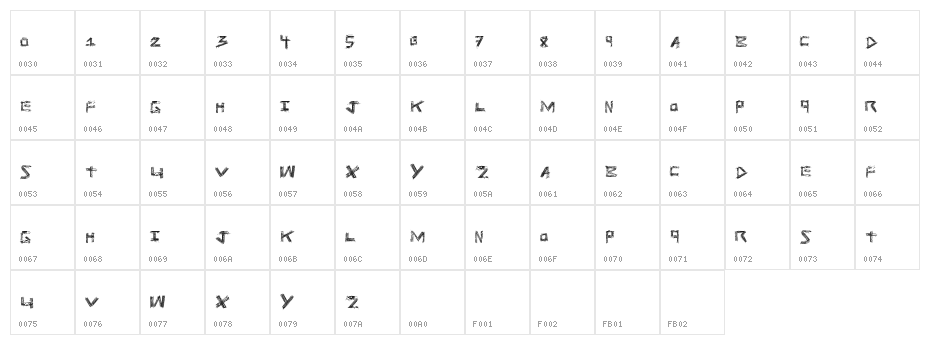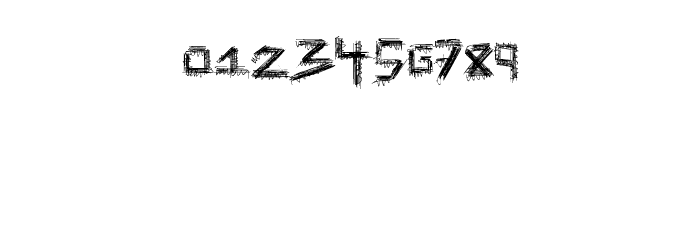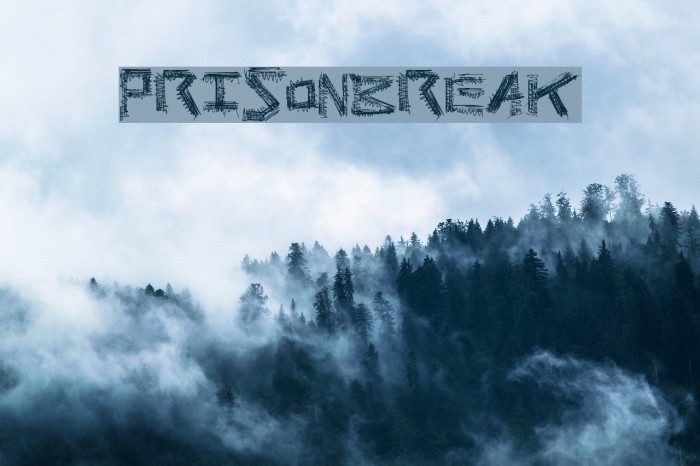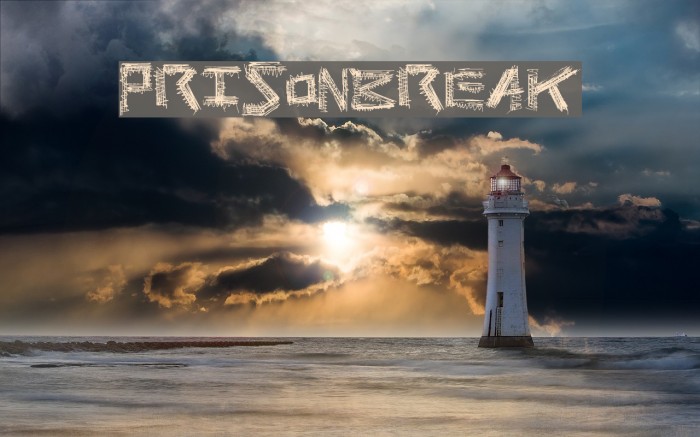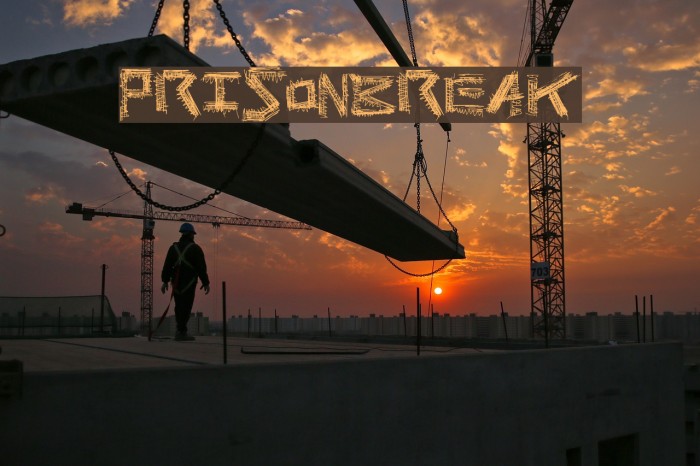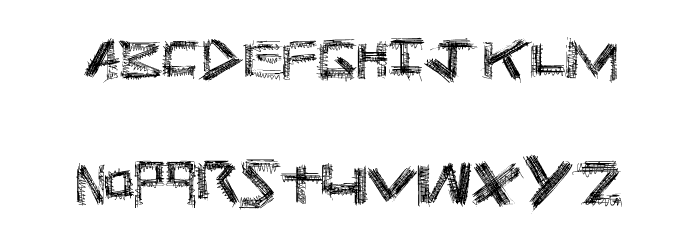
PrisonBreak Font
PrisonBreak Description
This font features a rugged, distressed appearance, reminiscent of graffiti or hand-drawn sketches. The characters are bold and angular, with a rough texture that gives them a gritty, urban feel. The uppercase and lowercase letters maintain a consistent style, with sharp edges and irregular line work that suggests a sense of movement and energy. Numbers and special characters follow the same design principles, ensuring a cohesive look across all elements. The font's unique style makes it stand out, making it ideal for projects that require a bold, rebellious aesthetic.
PRISONBREAK UPPERCASE
PRISONBREAK LOWERCASE
PRISONBREAK OTHER CHARS
| Overall Style | Urban, Edgy, Rebellious |
| Proposed Projects | Ideal for album covers, street art designs, posters, and edgy branding projects. |